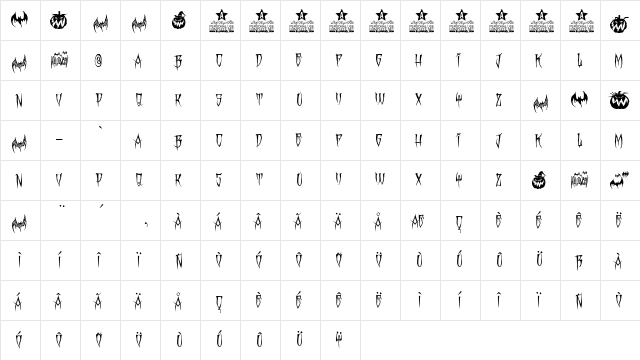
MONSTER PARTY PERSONAL USE Regular
| Foundry | Billy Argel Fonts |
| Designer | Billy Argel |
Design Context for MONSTER PARTY PERSONAL USE Typeface
MONSTER PARTY PERSONAL USE is a composed and adaptable typeface that performs quietly and consistently across a wide range of design contexts.